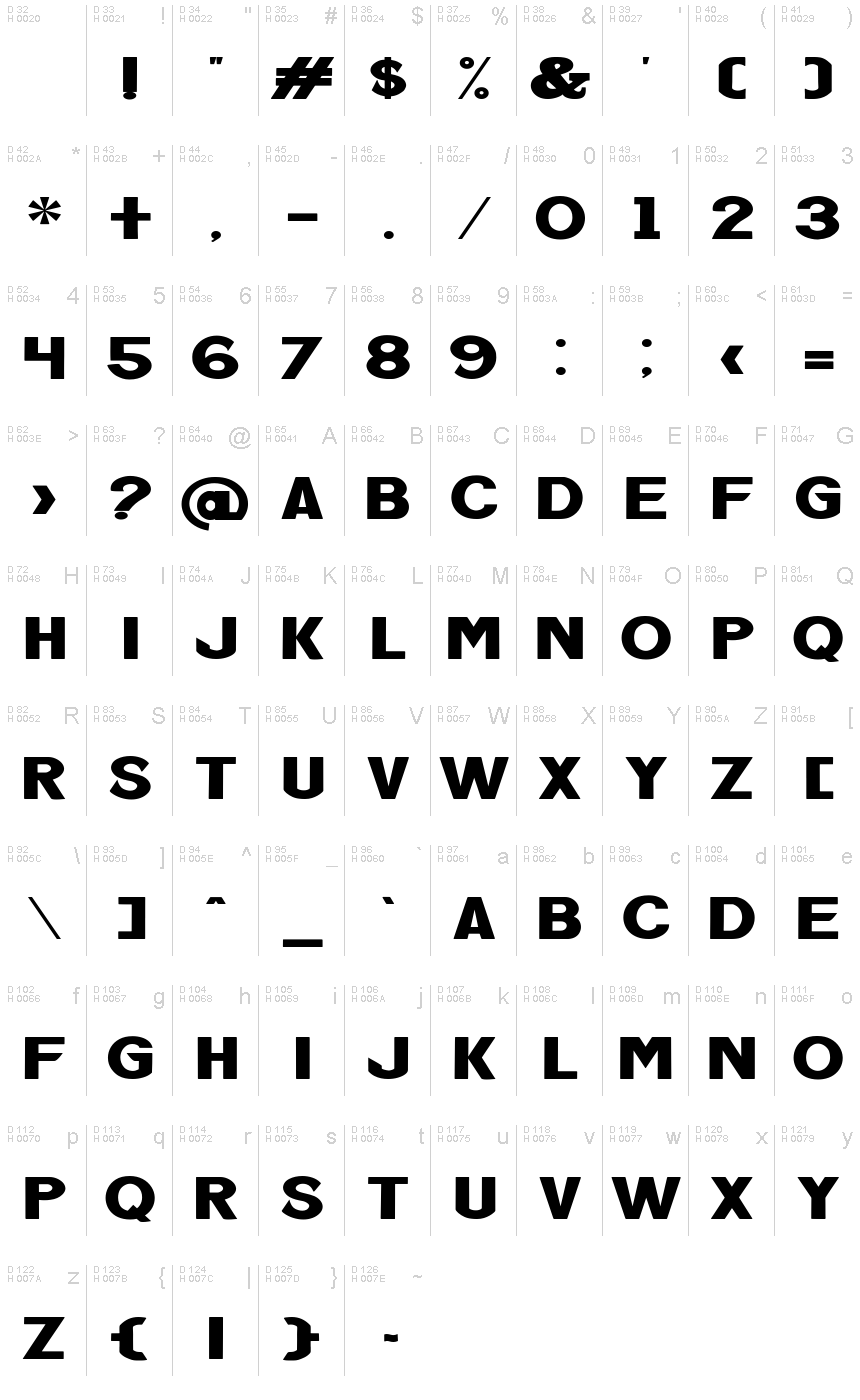
Uniqloves, a bold and distinctive sans-serif font created by Fikryal Studio, exudes a confident and modern elegance. With its sharp, geometric forms and strong presence, this typeface captivates the eye, lending a sense of authority and sophistication to any design. The clean, minimalist aesthetic of Uniqloves seamlessly blends simplicity and impact, making it a versatile choice for a wide range of applications, from branding and editorial layouts to digital interfaces and promotional materials.
Uniqloves' bold and assertive character lends itself particularly well to headings, titles, and impactful text. Its impressive legibility and visual impact make it an excellent selection for attention-grabbing headlines, signage, and display typography. Designers seeking to convey a sense of modernity, professionalism, and confidence will find Uniqloves to be a compelling addition to their typographic toolkits.